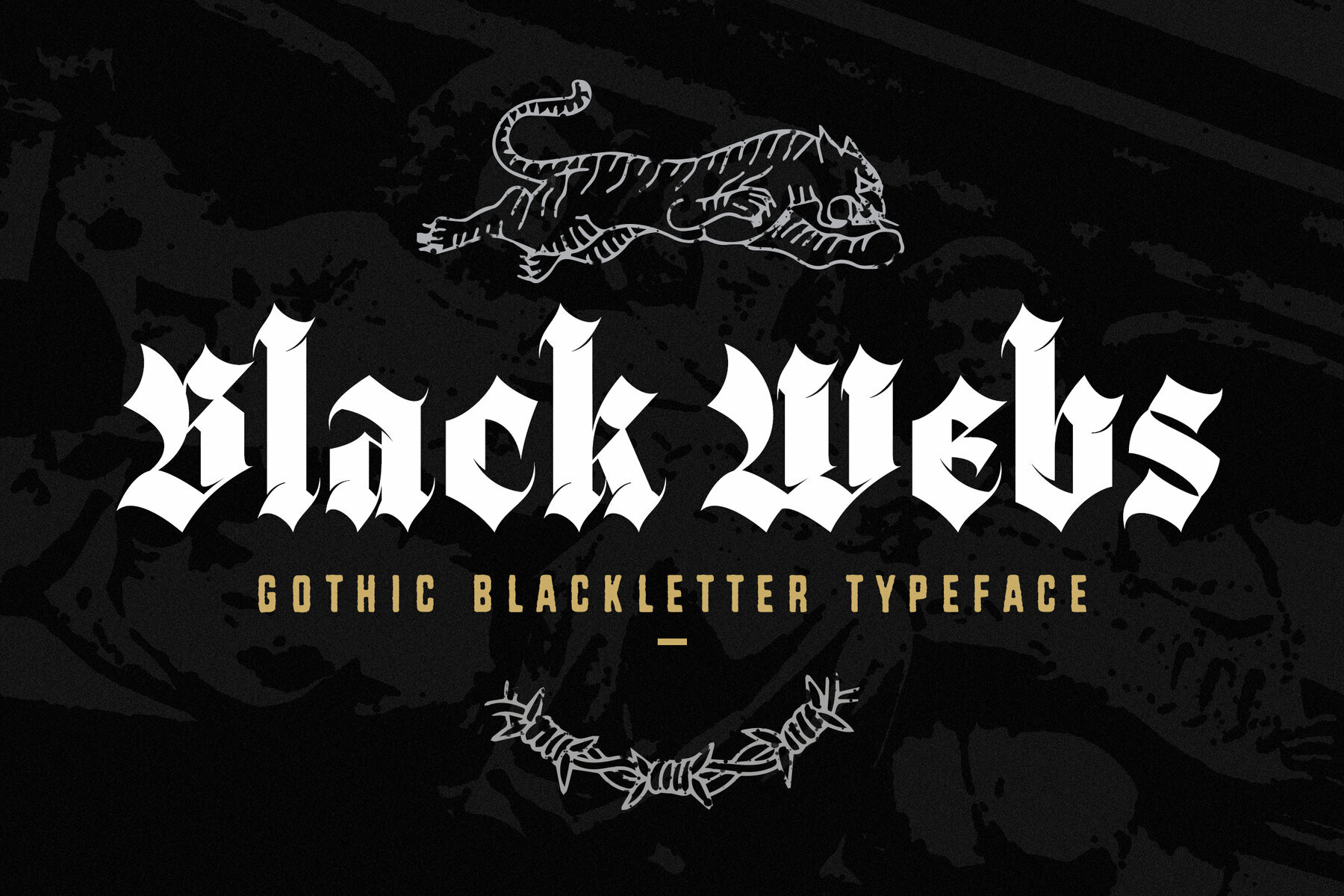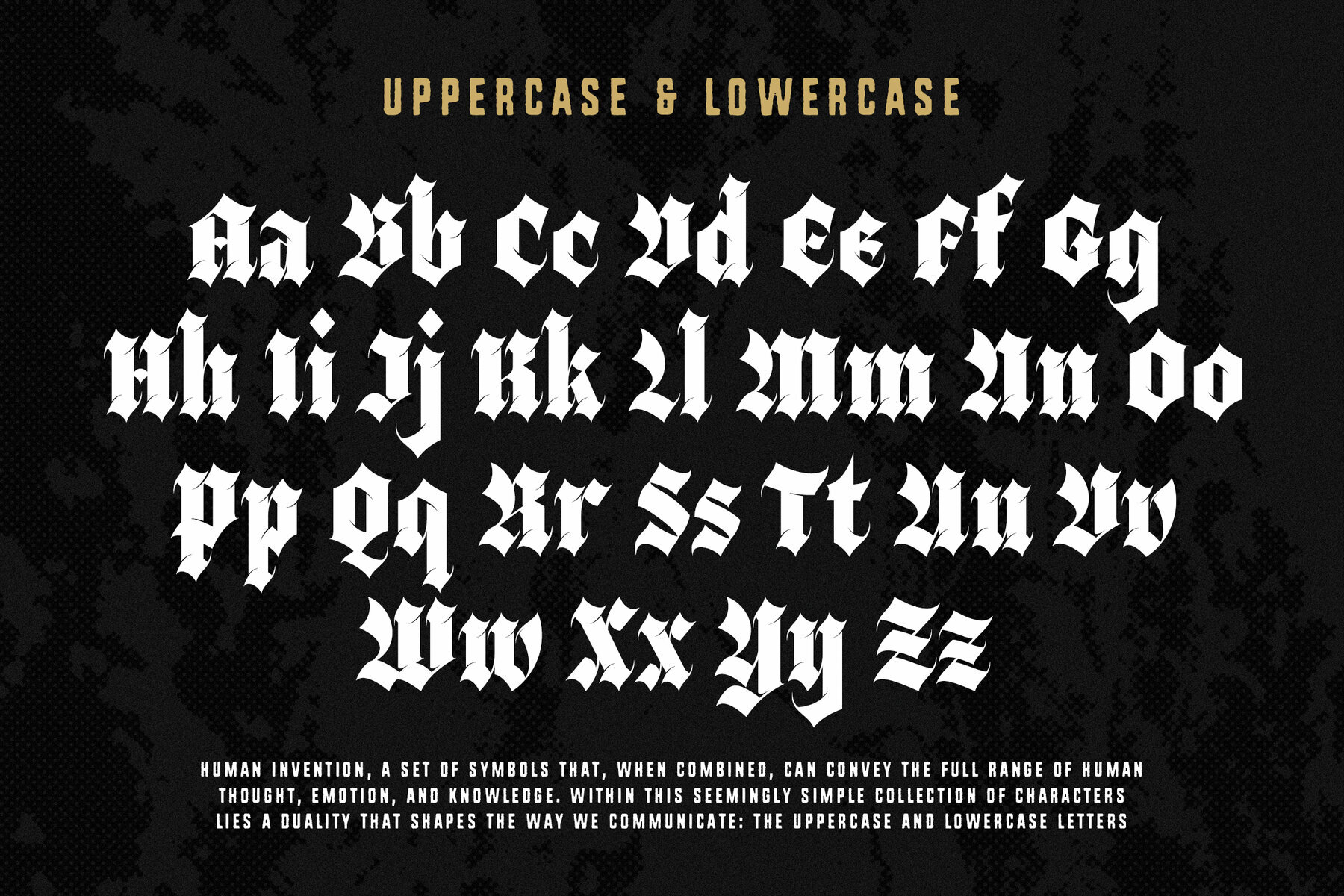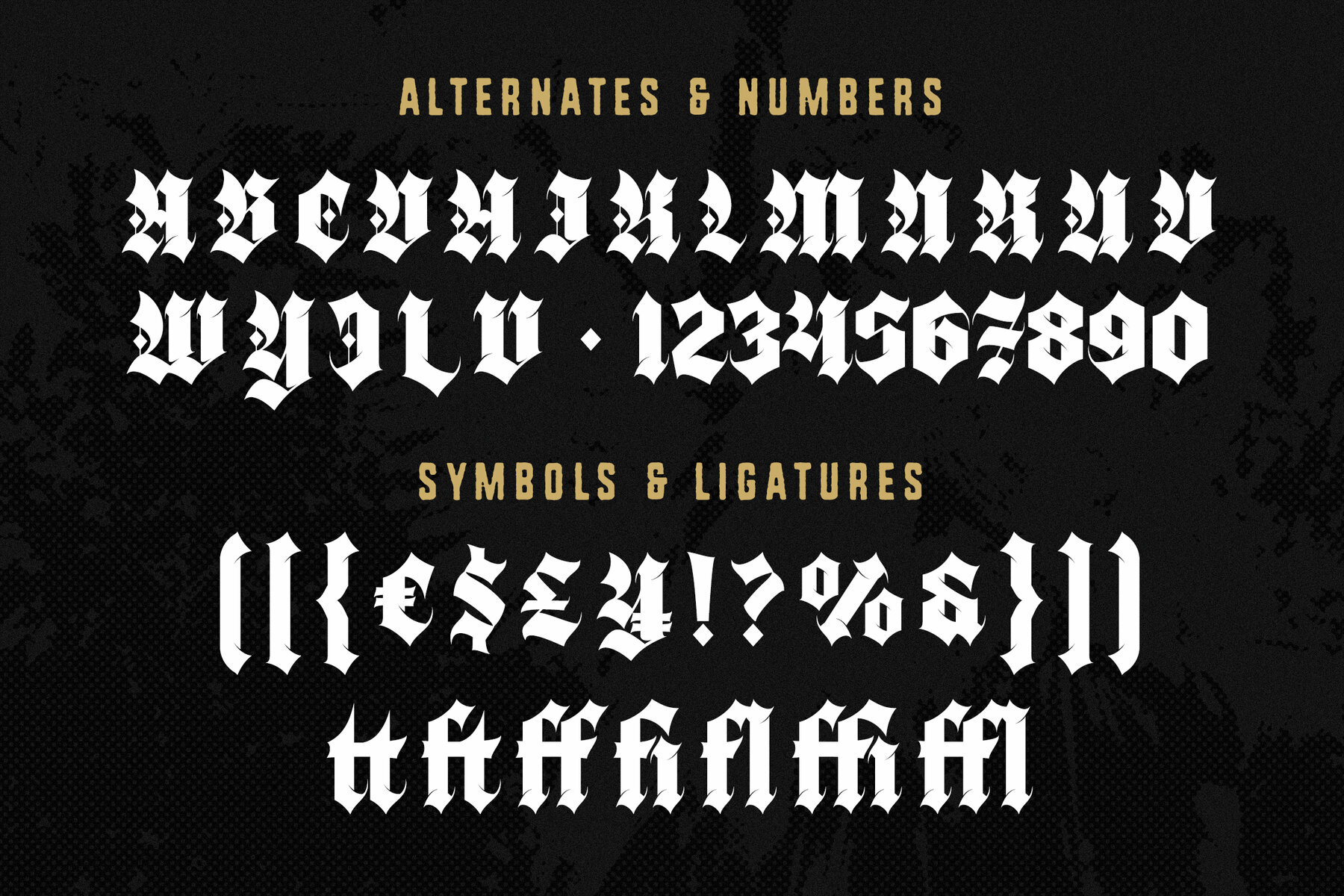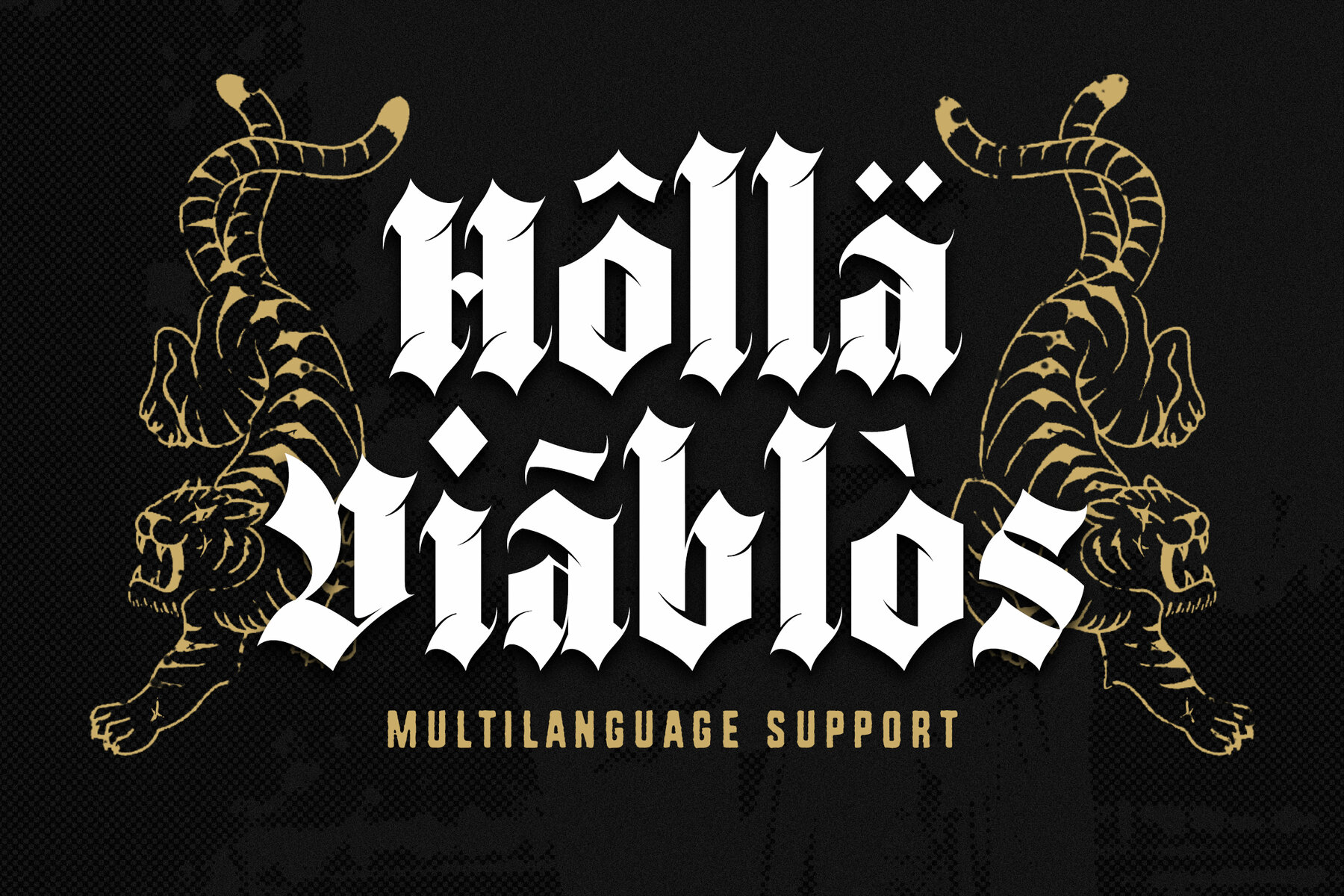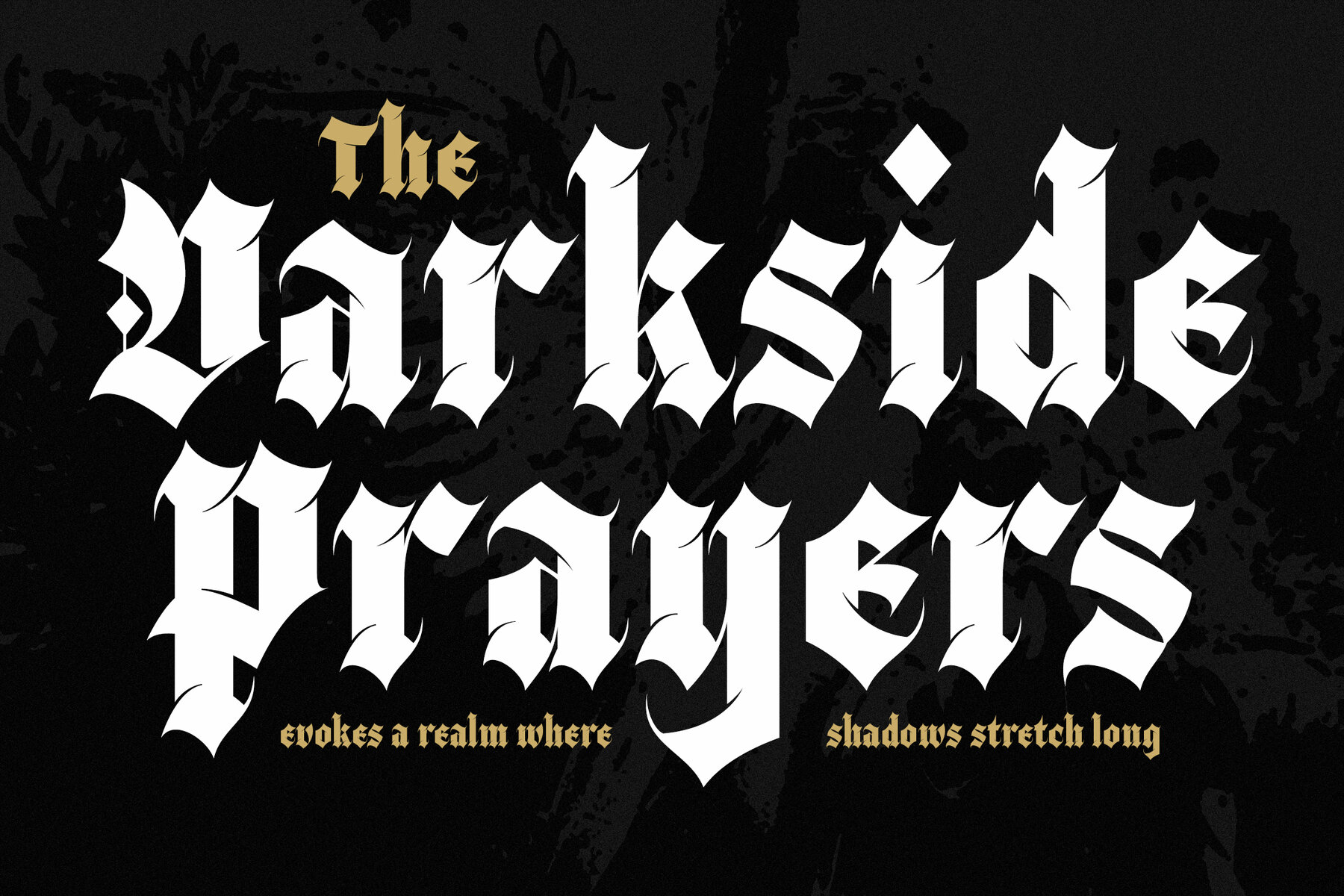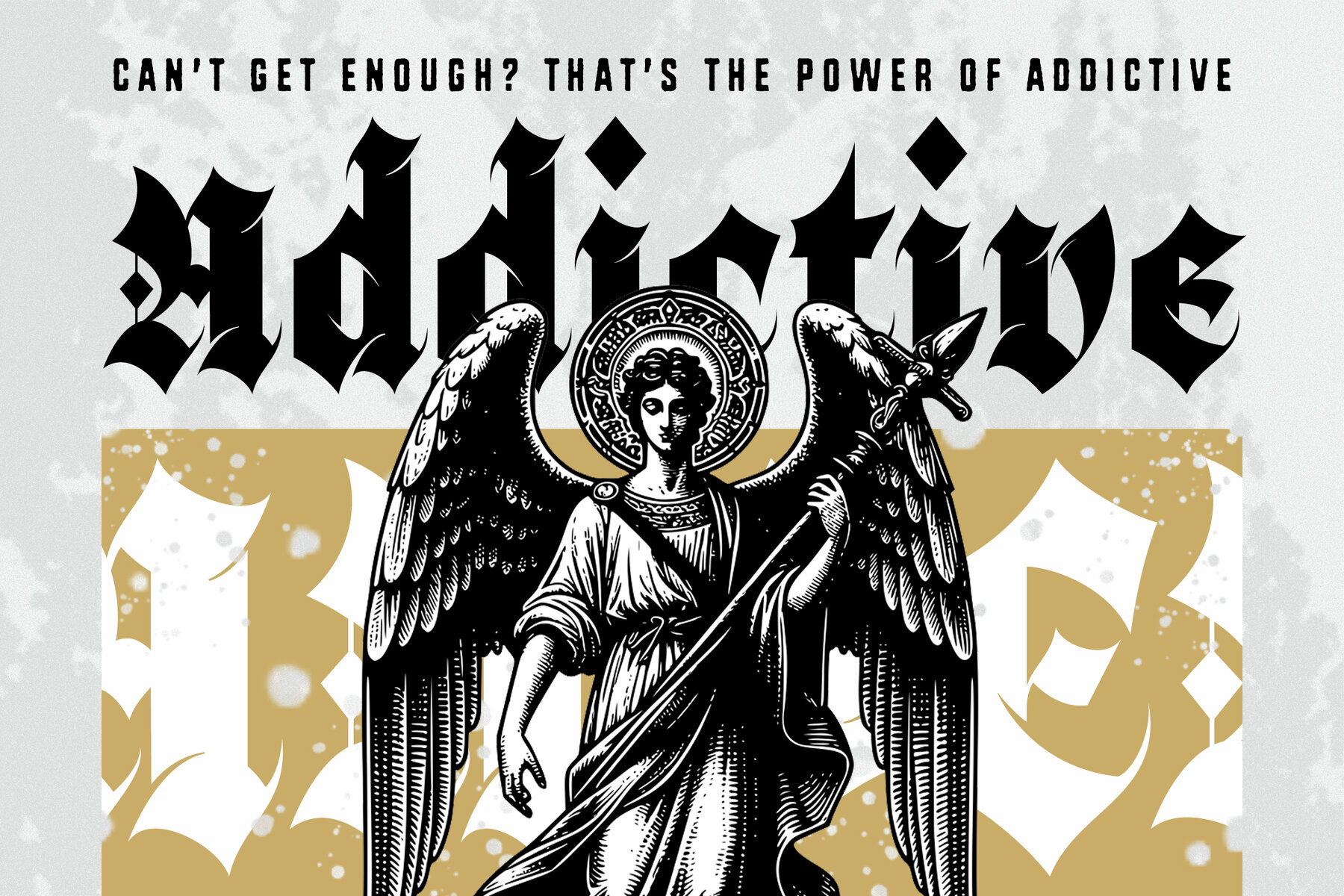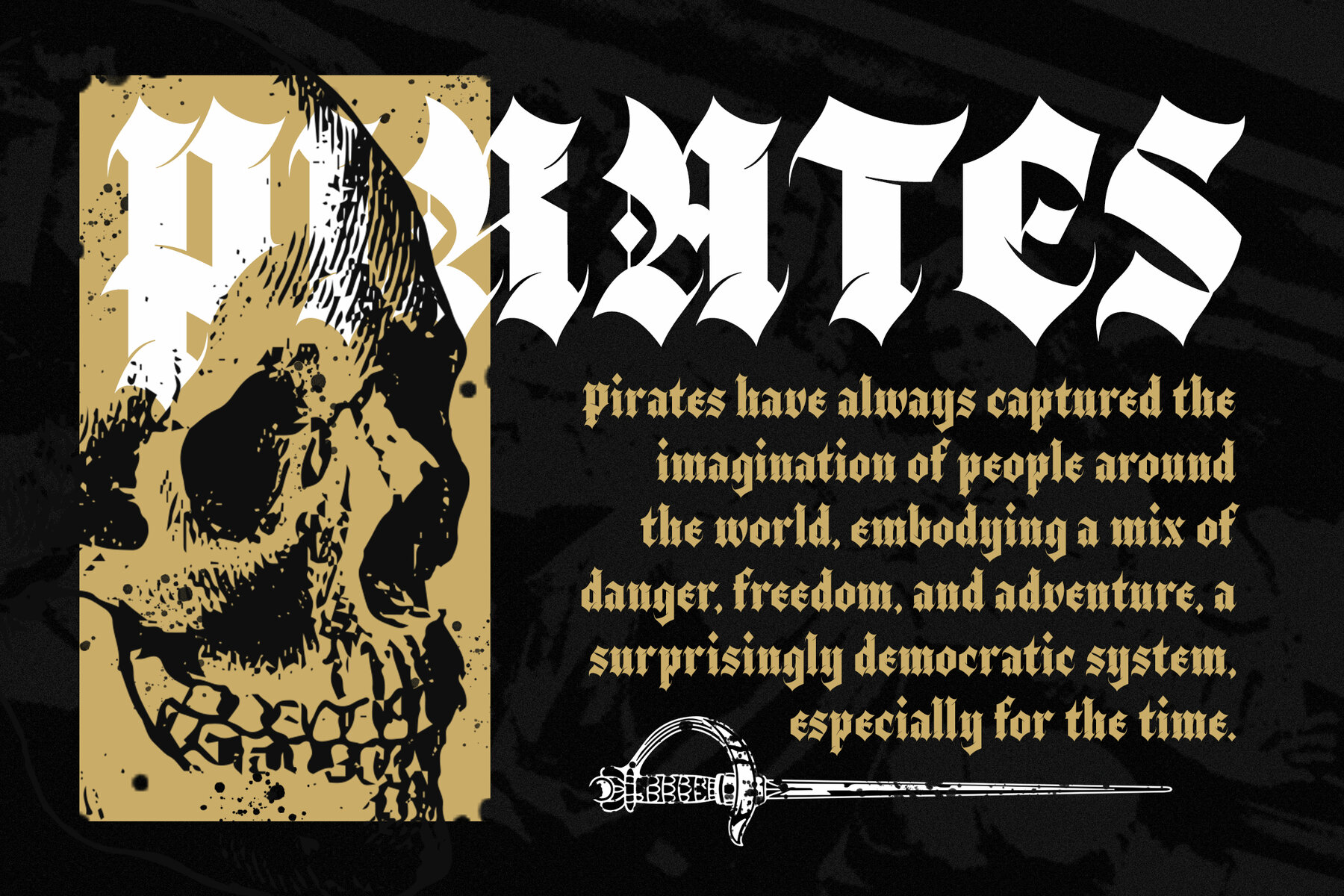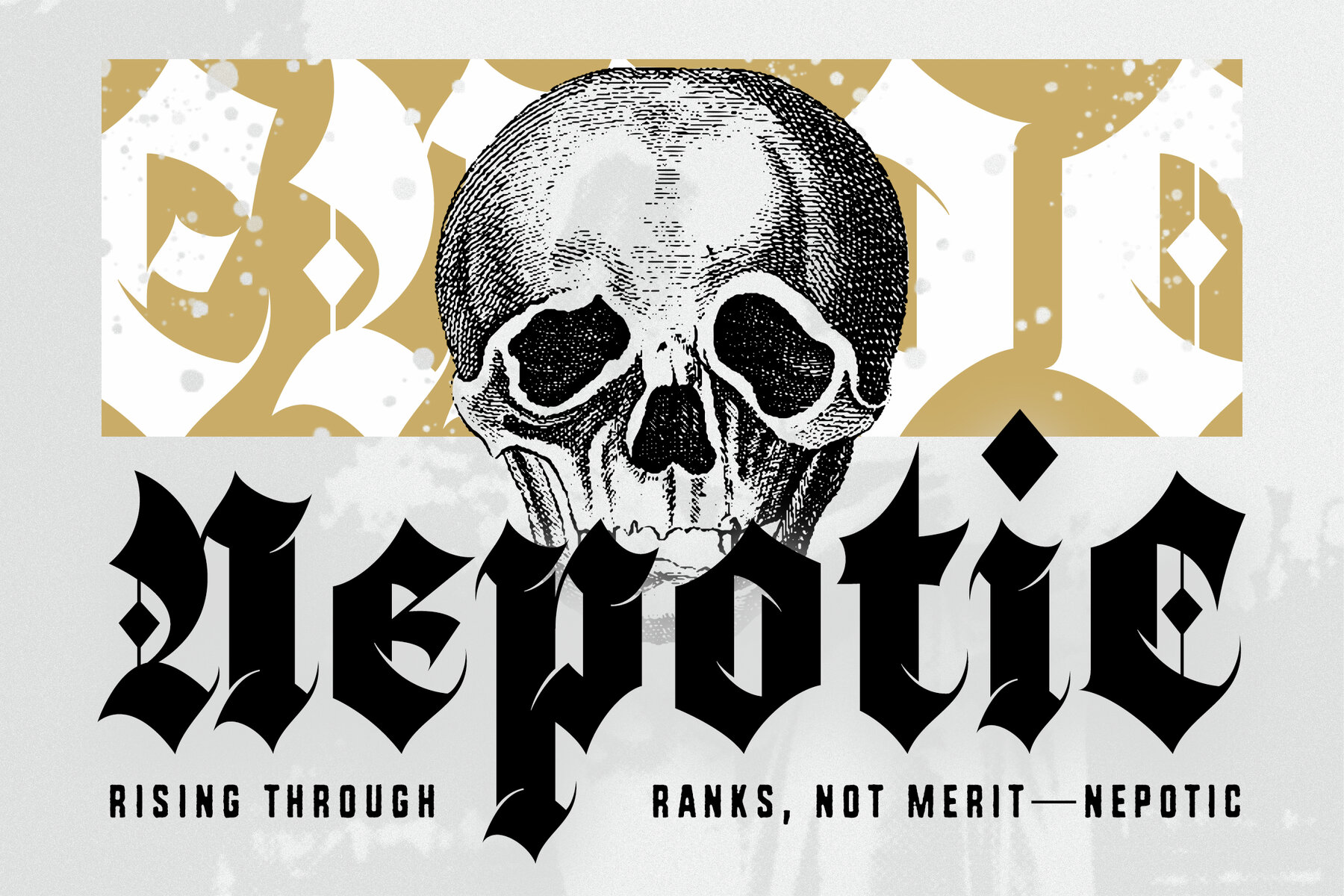
Black Webs Font
Black Webs Regular
Black Webs is a Gothic Blackletter typeface that merges medieval design elements with a contemporary flair. The font features bold, intricate strokes and sharp, angular forms, making it ideal for dramatic and eye-catching visuals. Perfect for branding, album covers, tattoo designs, posters, logos, game design, movie titles, packaging, and apparel branding, Black Webs brings a gothic or medieval aesthetic to various projects. It's also excellent for editorial designs and book covers, adding a sense of dark elegance and historical depth.
This typeface comes with uppercase and lowercase letters, punctuation, numerals, ligatures, alternate characters, and multilingual support. The inclusion of ligatures and alternate characters allows for customized and unique typography, enhancing the gothic essence of your design. Designed for professionals seeking a bold, gothic touch, Black Webs adds mystique and intensity to any project, making it an ideal choice for making a strong statement.